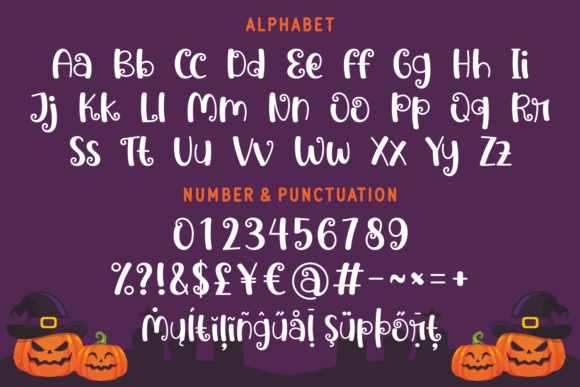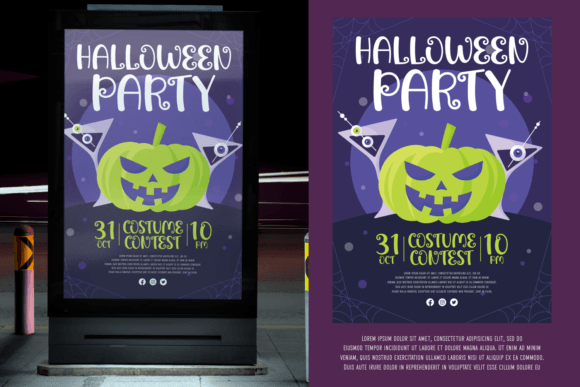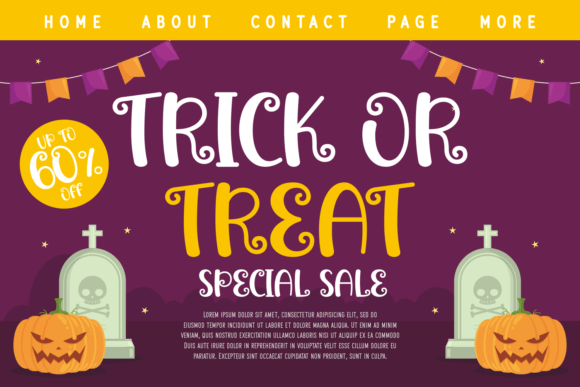
Introduction to Halloween Curly Creepy Font
You know that moment when you’re brainstorming ideas for a creative project and everything just comes together? It’s like the stars align, and your design sparks to life. For many designers, that moment often involves the perfect font – one that captures the essence of the project and elevates it to the next level. If you’re working on a Halloween-themed design, you’re in luck because we’ve got just the thing: the Halloween Curly Creepy Font.
This fun and playful handwritten font is a game-changer for any creative project that needs lively typography. Whether you’re designing Halloween posters, party invitations, banners, or branding, the Halloween Curly Creepy Font is sure to add that extra oomph. And the best part? It’s available for free download, making it an accessible high-quality design resource for designers of all levels.
Key Features of Halloween Curly Creepy Font
- Unique, spooky design ideal for creative projects and Halloween-themed artwork
- High-quality font with transparent background, allowing for easy customization
- Perfect for creating eerie, hand-drawn-style text effects, adding a touch of whimsy to any design project
Honest Review: Halloween Curly Creepy Font
I recently stumbled upon the Halloween Curly Creepy Font while searching for design resources for a creative project. I was immediately drawn to its unique and spooky vibe, perfect for a Halloween-themed design.
- ✨ Unique and creative design that stands out from the crowd
- ✨ High-quality design that’s perfect for print or digital use
- ✨ Transparent background option makes it easy to customize and use in various designs
- ⚠️ Limited character set, which may not be ideal for longer text
- ⚠️ May not be suitable for designs that require a lot of text or complex typography
Overall, I’m impressed with the Halloween Curly Creepy Font. It’s a great addition to any designer’s toolkit, especially for those working on Halloween-themed projects. While it may have some limitations, its unique design and high-quality make it a valuable design resource.
Tips for Getting the Most Out of the Font
To get the most out of the Halloween Curly Creepy Font, use it on a transparent background to create a spooky effect. You can also pair it with other fonts to create a unique and creative look.
The Halloween Curly Creepy Font is perfect for creating spooky invitations, posters, and social media graphics. It’s also great for adding a touch of whimsy to your design projects.